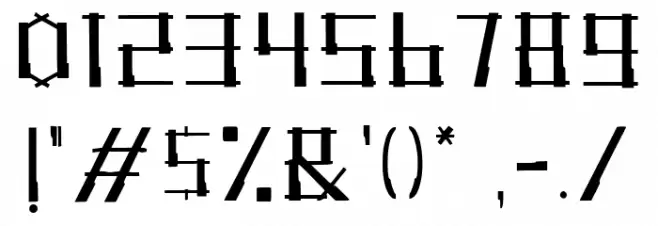
Angklung_KM_017 Regular Font
Angklung_KM_017 Regular Description
This font features a unique and artistic design, characterized by its angular and geometric shapes. The letters are constructed with a combination of straight lines and sharp angles, giving it a modern and edgy appearance. The uppercase and lowercase letters maintain a consistent style, with a slight variation in thickness that adds visual interest. The numbers and special characters follow the same design principles, ensuring a cohesive look across all elements. This font's distinct style makes it stand out, making it suitable for creative and bold design projects.
A modern, angular font with geometric shapes and sharp angles from Decorative fonts.
- Proposed Projects: Ideal for creative projects such as posters, album covers, and branding materials that require a bold and artistic touch.